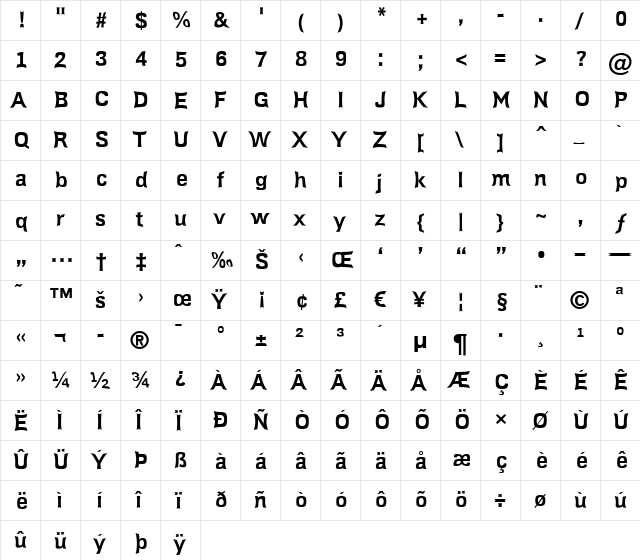
a_ReportSansCncv Bold
| Designer | W.Chufarofsky & M.Slutsker |
Design Context for a_ReportSansCncv Typeface
a_ReportSansCncv is a composed and adaptable typeface that performs quietly and consistently across a wide range of design contexts. Its bold stroke weight gives it real presence on the page.